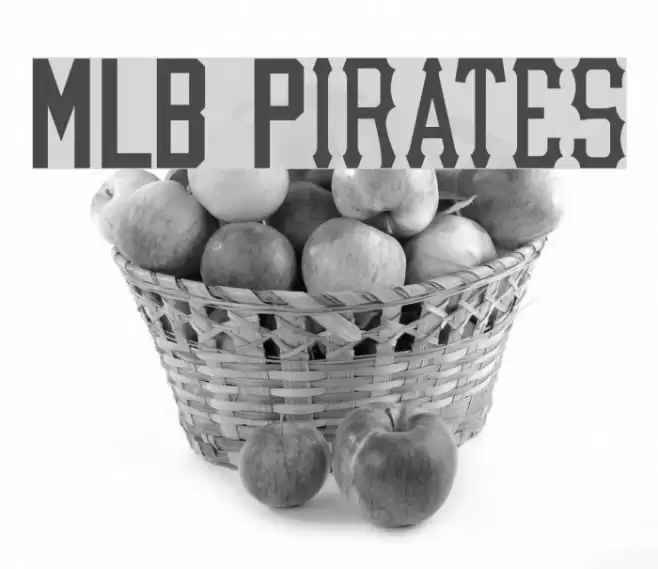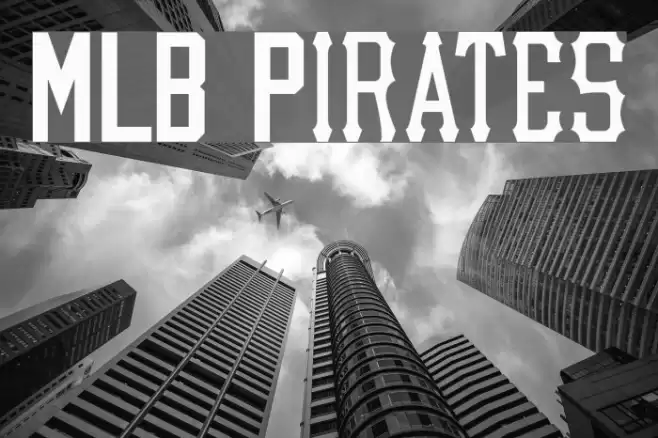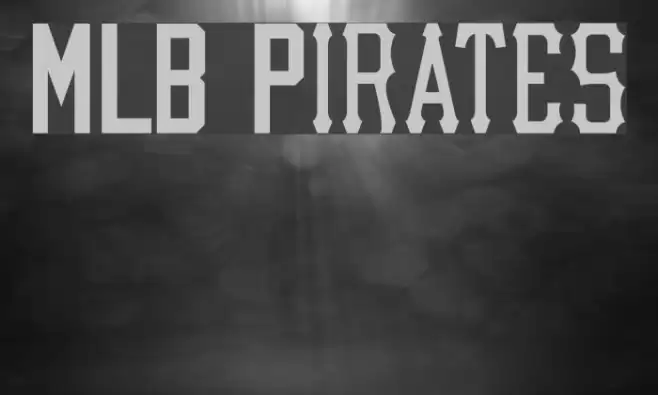
MLB Pirates Font
MLB Pirates Description
This font features a bold and commanding presence with its strong, angular lines and geometric shapes. The uppercase letters are particularly striking, with a blocky, industrial feel that conveys strength and authority. The lowercase letters maintain this robust style, ensuring consistency throughout the typeface. The numerals are equally bold, with a uniform thickness that enhances readability. This font's unique character is further emphasized by its decorative elements, which add a touch of flair without compromising legibility. The overall design is reminiscent of vintage sports team logos, making it ideal for projects that require a bold, impactful statement.
A bold, geometric font with a vintage sports aesthetic from Uncategorized fonts.
- Proposed Projects: Ideal for sports team branding, merchandise, posters, and headlines that require a strong, impactful presence.
- Overall Style: Vintage